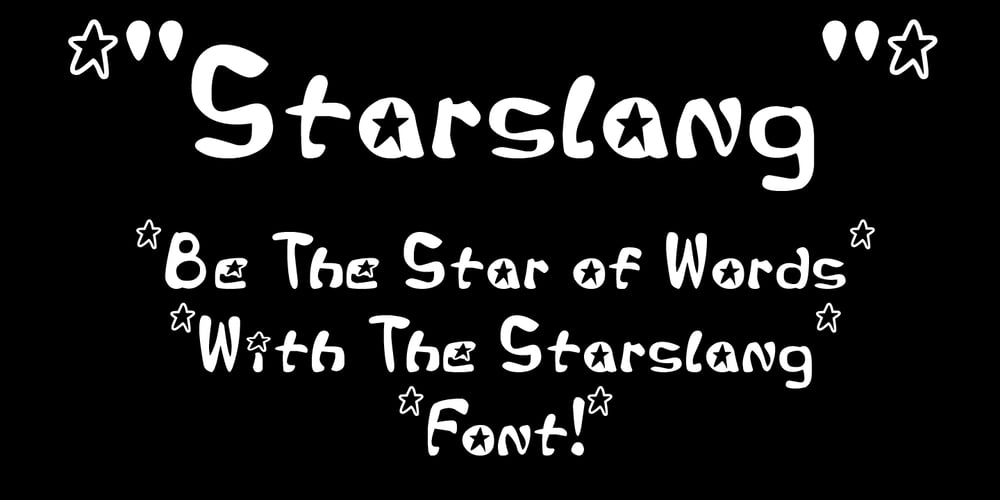
Starslang Font Family was designed by Ted Lau and published by MyAnvil. Starslang contains 1 styles and family package options. This is the “Starslang” font, that features a star shape embedded within the letters of the vowels. The theme was designed to enlighten the mood and spirit with a fun mood of urban atmosphere.